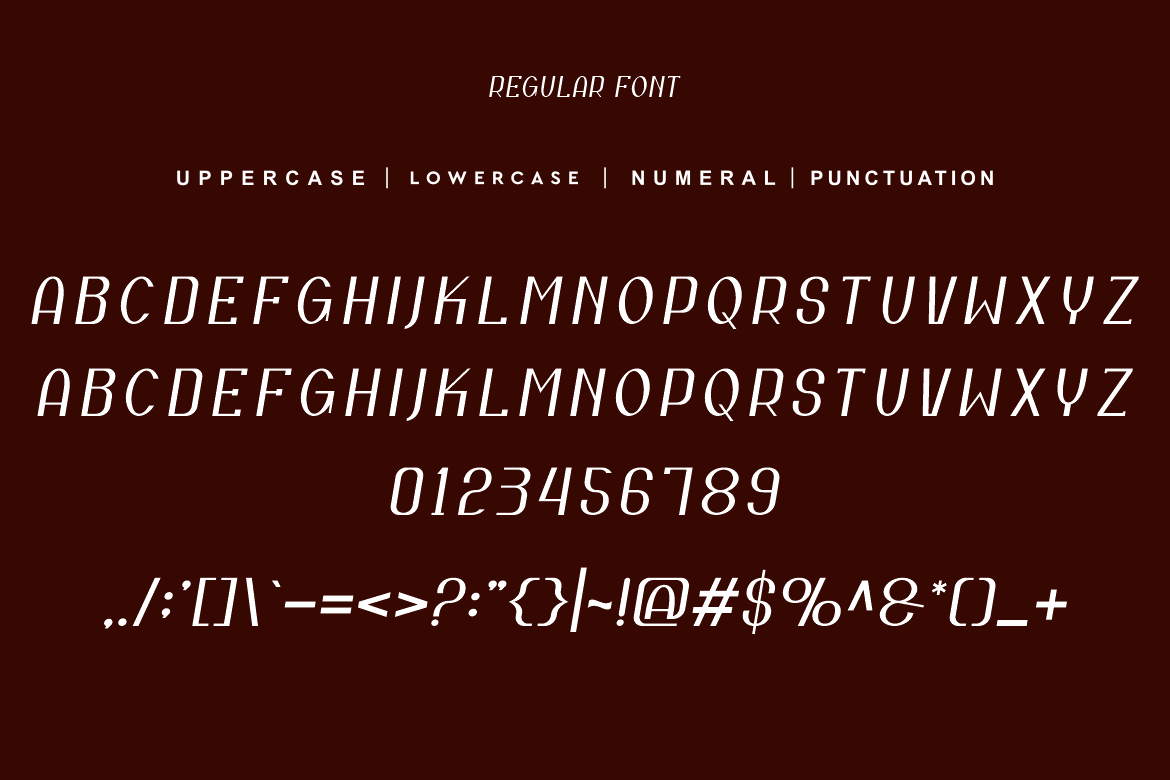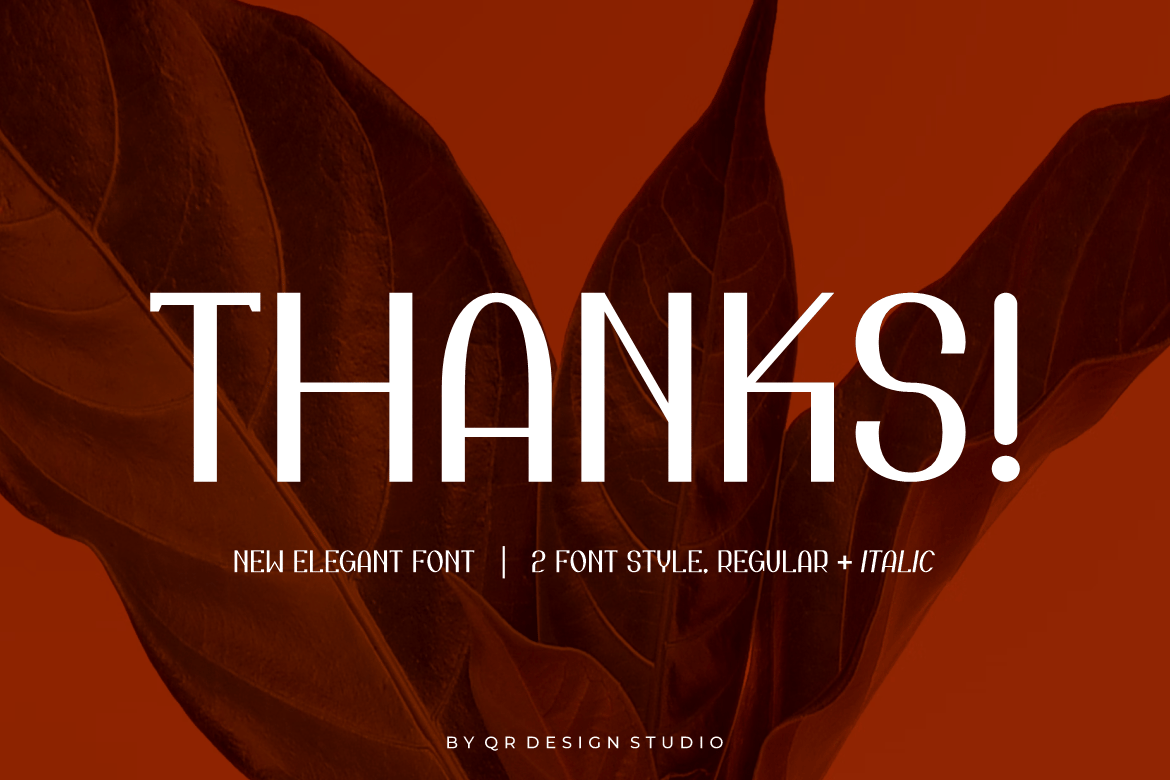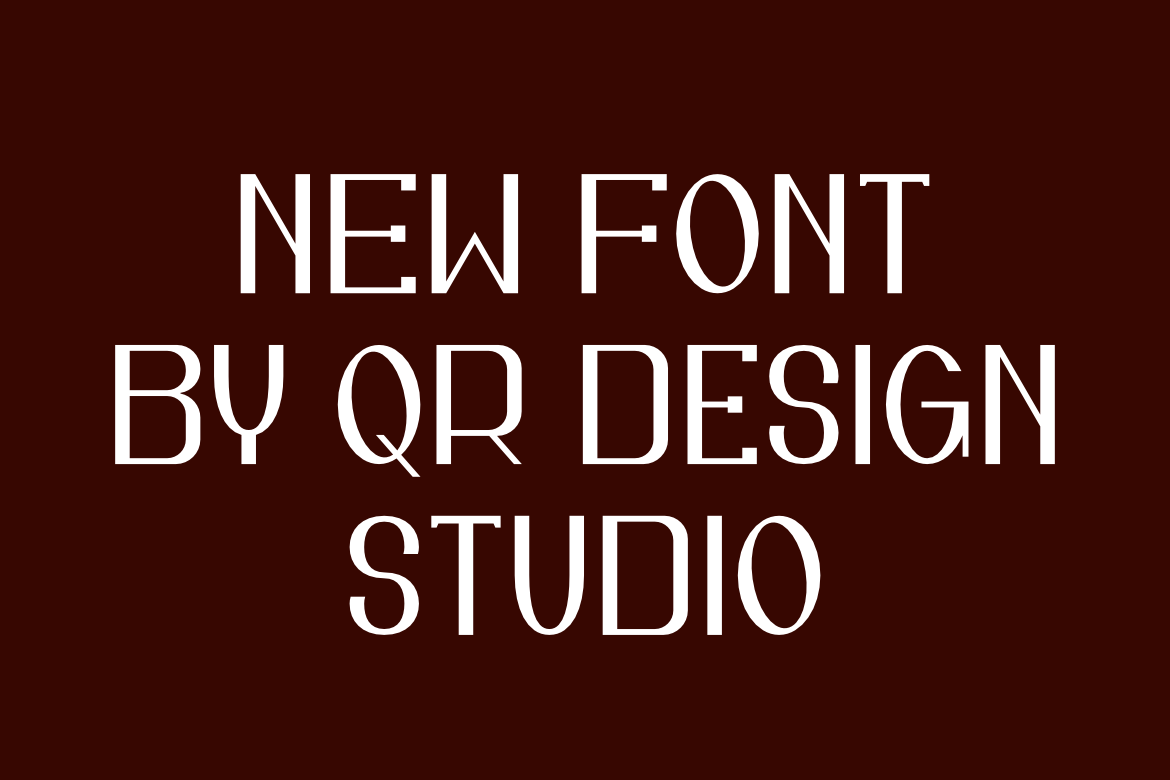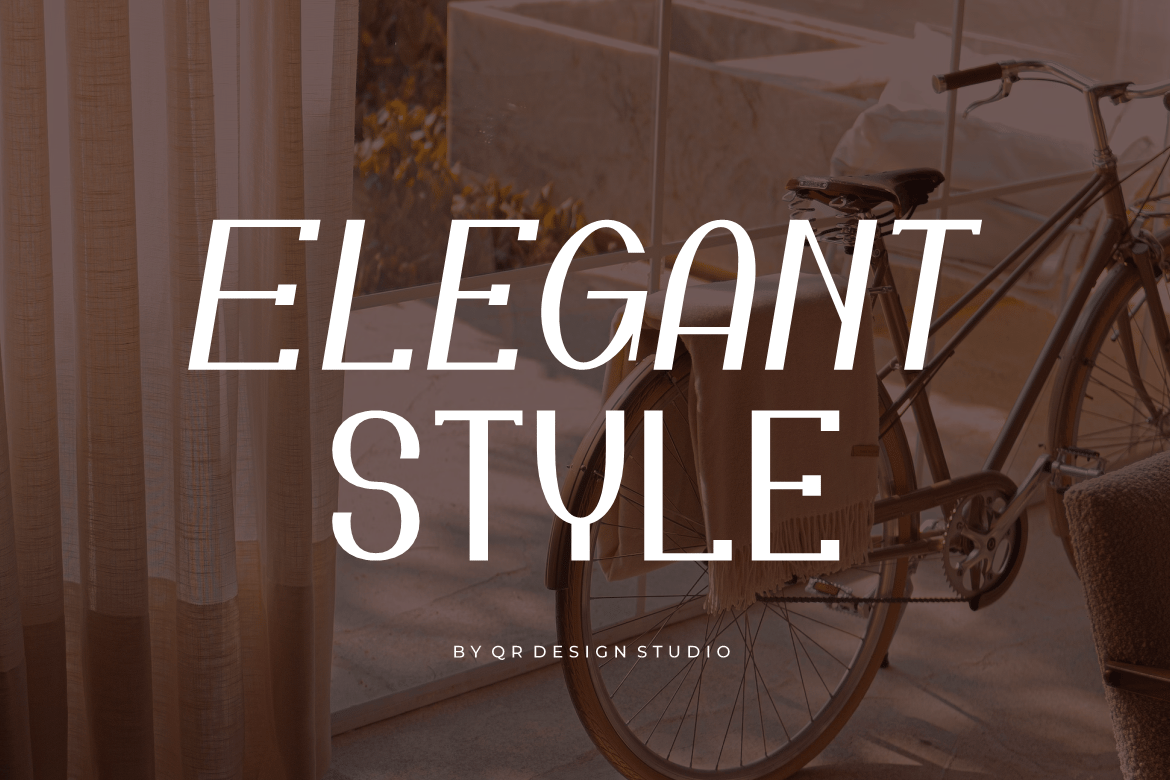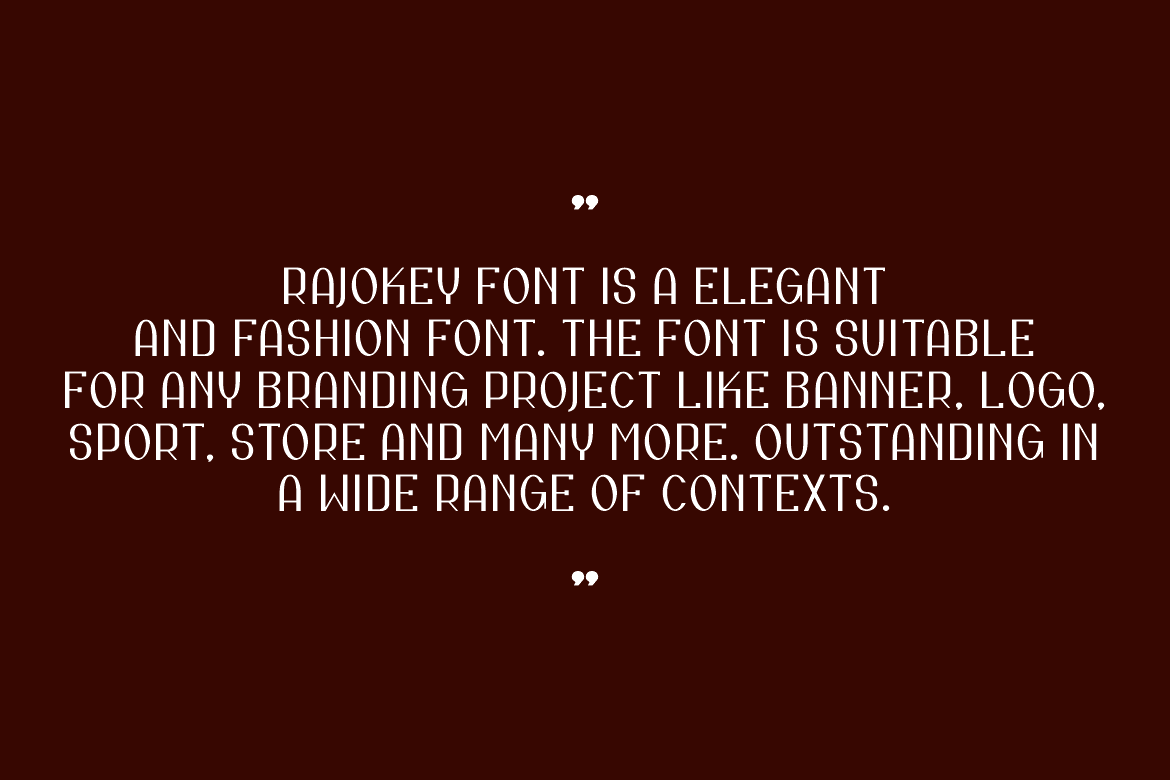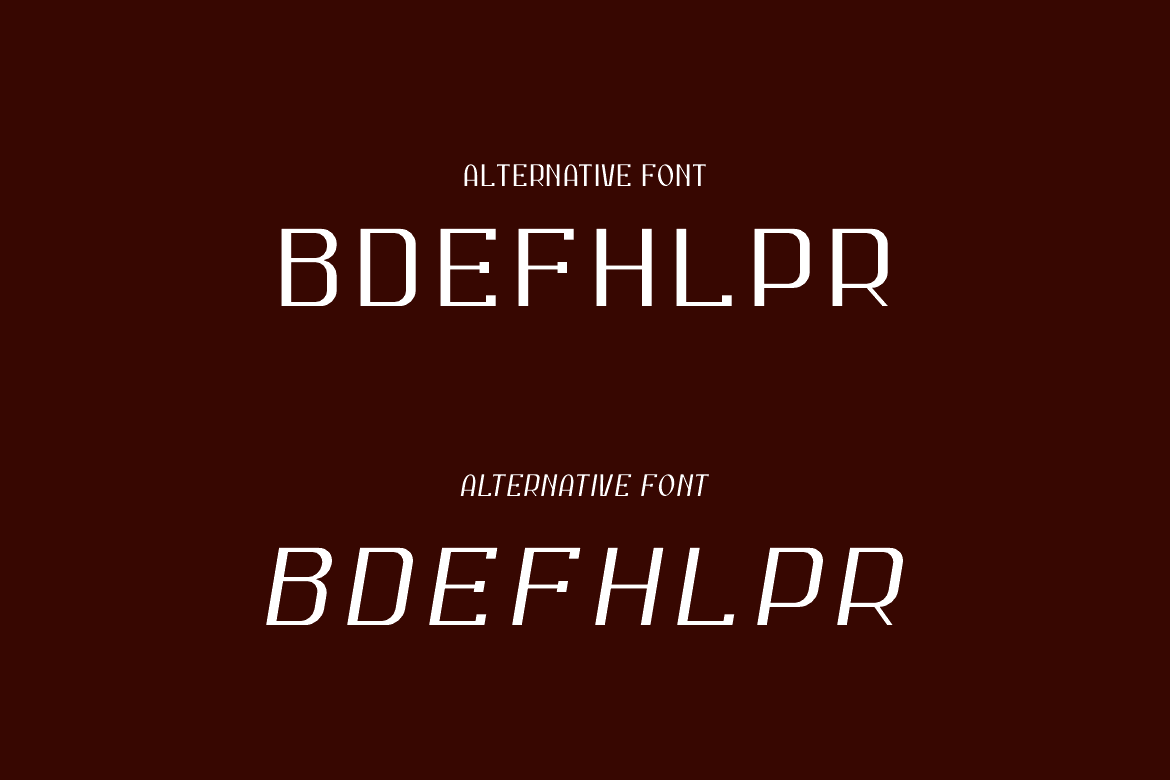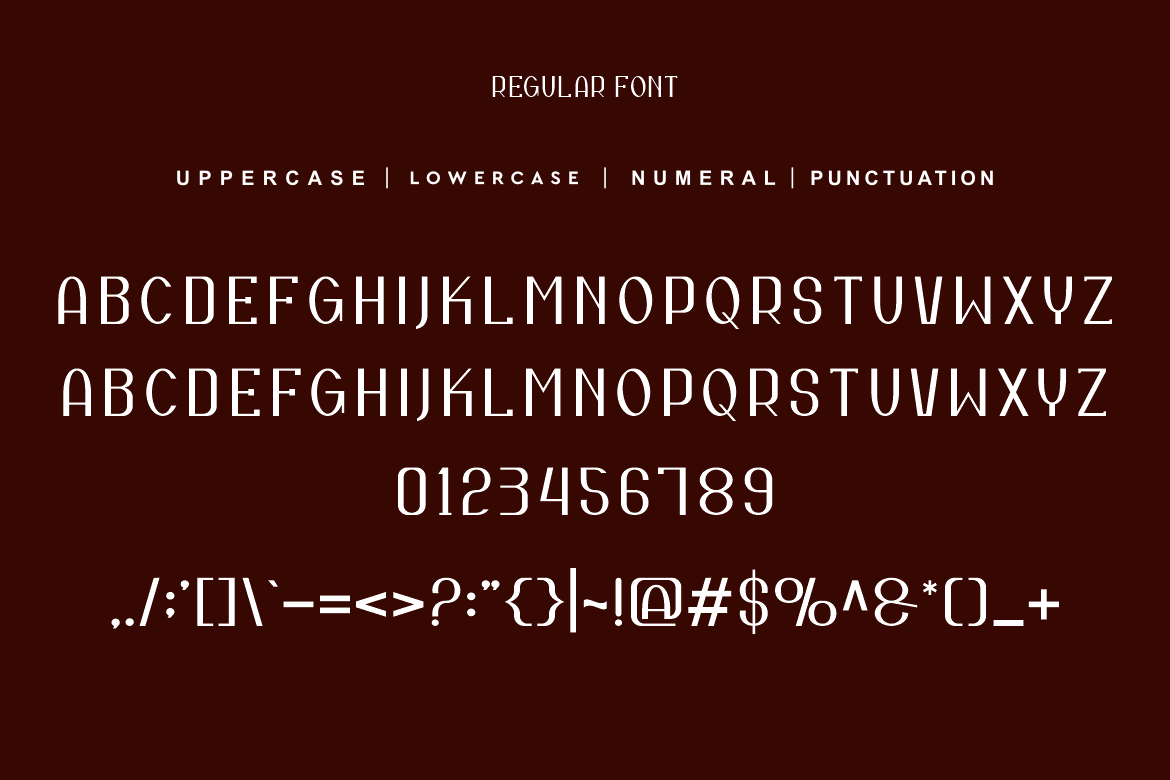
Rajokey – Nature Font
Rajokey – Nature Font is a san serif and authentic display font.
The font is suitable for any branding project like stylish, poster, logo, sport, and many more.
Outstanding in a wide range of contexts.